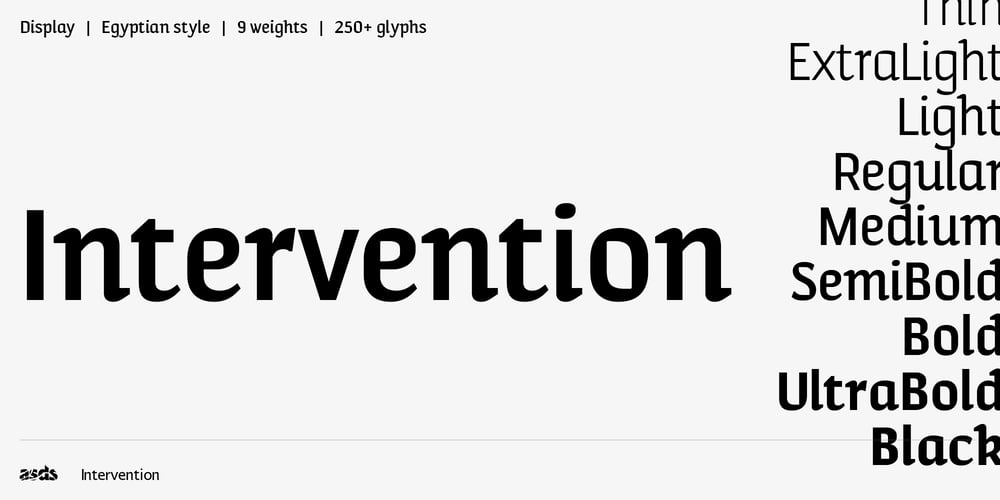
Intervention Font Family was designed by Alister Shapley and published by Applied Systems Design Studio. Intervention contains 12 styles and family package options. Intervention is a display font inspired by early 1900s Constructivist design from Eastern Europe. Designed originally for Taktiky Studio’s exhibition in Prague titled Čekání Proměny. This exhibition was a series of interventions located along the new Metro D route looking at the impacts the new civil engineering project will have. Interventions was originally designed for Czech, Slovak and English languages and has now been expanded and adjusted for commercial release.